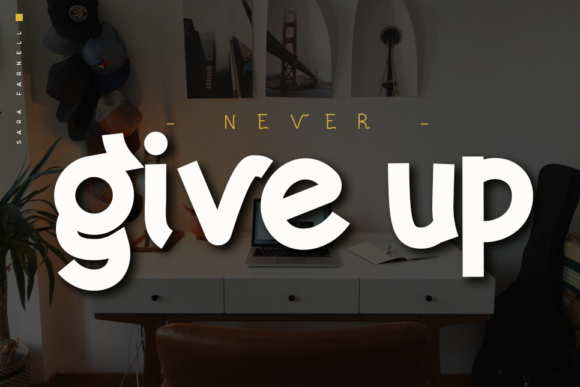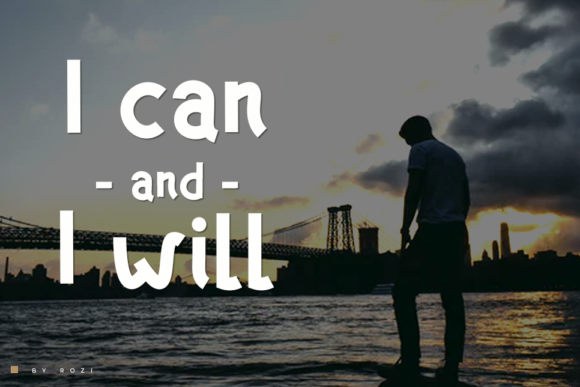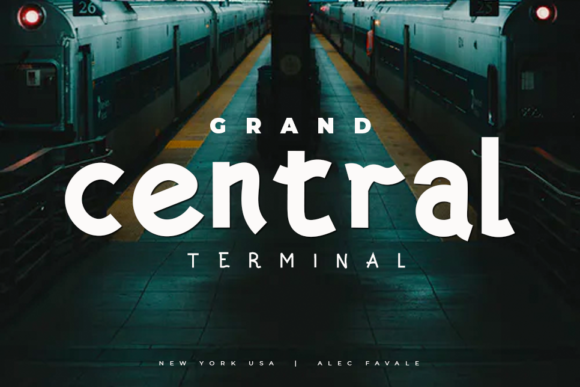
Introduction to Kanagif Font
Kanagif is a bold sans serif font, carefully handcrafted to become a true favorite.
Kanagif is the perfect font for making original and outstanding designs .
Key Features of Kanagif Font
Why Choose Kanagif Font?